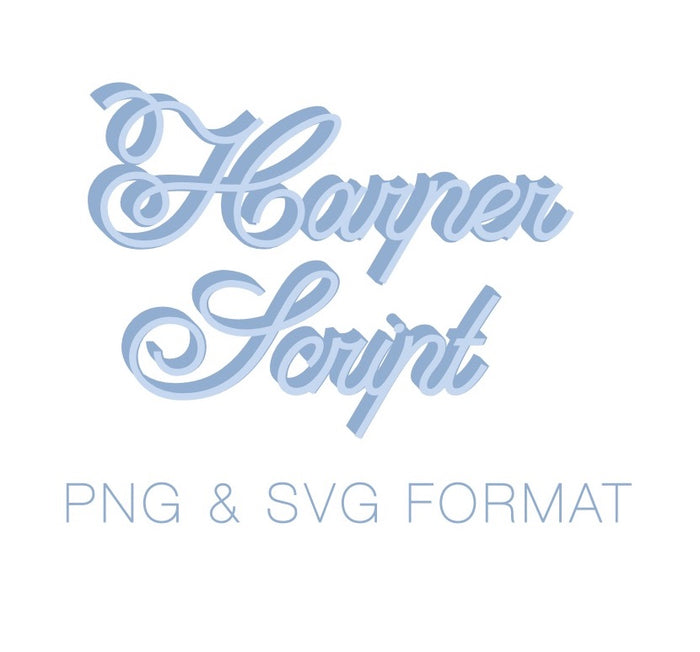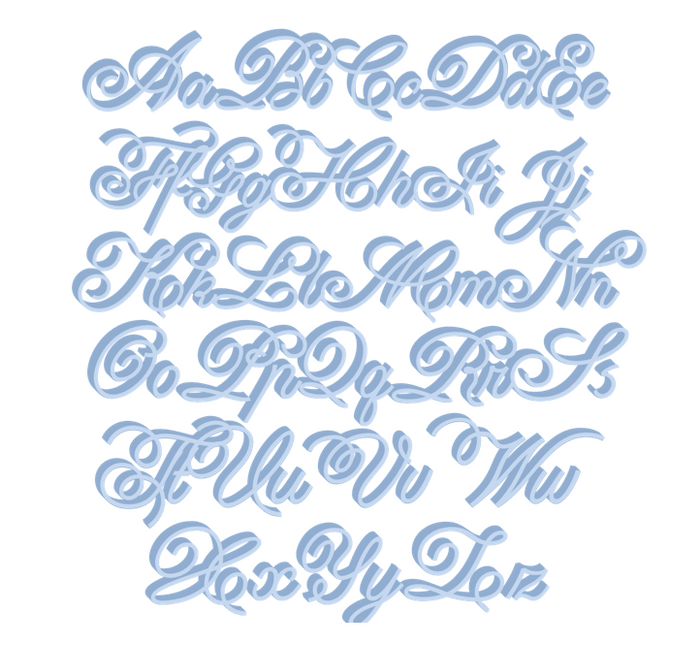
The Harper Font includes 52 uppercase and lowercase letters A-Z in both the shadow layer and the script layer to create the monogram as shown in the first image. There are 104 total files included in this purchase.